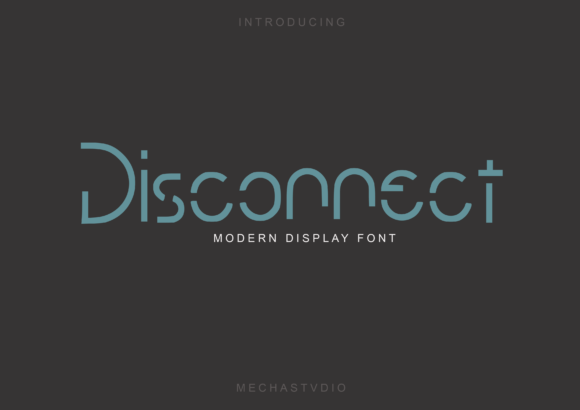
Unleash Your Creativity with the Disconnect Font
Have you ever been stuck on a design project, struggling to find the perfect font to bring your vision to life? We’ve all been there – staring at a blank screen, desperately searching for inspiration. And then, suddenly, it hits you. A burst of creativity, a spark of genius, and your design begins to take shape. For designers, this moment is pure magic, and the right font can be the catalyst that sets it all in motion.
Enter the Disconnect Font, a simple, modern, and unique custom display font that’s perfect for transforming your projects into true standouts. With its distinctive style, you’ll be able to add a touch of personality to your designs, setting them apart from the crowd. Whether you’re a seasoned pro or just starting out, the Disconnect Font is a valuable tool that’s sure to become a staple in your design arsenal.
Disconnect Font Key Features
- Font Family: Disconnect is a sans-serif font family designed by Production Type, featuring six weights: Light, Regular, Medium, Bold, Heavy, and Black.
- Character Set: Supports a wide range of languages, including Latin, Greek, Cyrillic, and many others, making it suitable for global design projects.
- Size: The font family is designed to be highly legible at a range of sizes, from 8 to 24 points, making it ideal for body text and display typography.
- Resolution: Designed to be scalable, Disconnect can be used at high resolutions, ensuring crisp and clear text in digital applications.
- Unique Characteristics: The font’s unique geometric shapes and subtle rounded edges give it a friendly and approachable feel, making it suitable for modern branding and design projects.
Disconnect Font Review
At first glance, Disconnect Font seems like a promising choice for designers looking for a unique sans-serif font. ✨ The font’s minimalist aesthetic and clean lines make it suitable for a wide range of applications, from corporate brands to modern websites.
- ✨ Disconnect Font’s biggest strength lies in its versatility. It’s easy to read on various screen sizes and devices, making it an excellent choice for digital projects.
- ✨ The font’s unique letterforms and subtle rounded edges add a touch of sophistication to any design, setting it apart from more common sans-serif fonts.
- ✨ The font’s open-source nature makes it accessible to designers of all levels, encouraging collaboration and creativity.
However, there are some limitations to consider. ⚠️ The font’s lack of italic and bold weights may limit its use in certain situations, such as in academic or technical writing.
Overall, Disconnect Font is a solid choice for designers who value simplicity and uniqueness. While it may not be suitable for every project, it’s definitely worth considering for modern and minimalist designs. With a bit of creative experimentation, Disconnect Font can be a valuable addition to any designer’s toolkit.
Disconnect Font Practical Application Guide
The Disconnect font is perfect for:
- Modern and minimalist designs.
- Branding and logo creation.
- Editorial and publishing designs.
- Marketing materials and advertising.
Experiment with the Disconnect font to add a unique touch to your designs and stand out from the crowd.